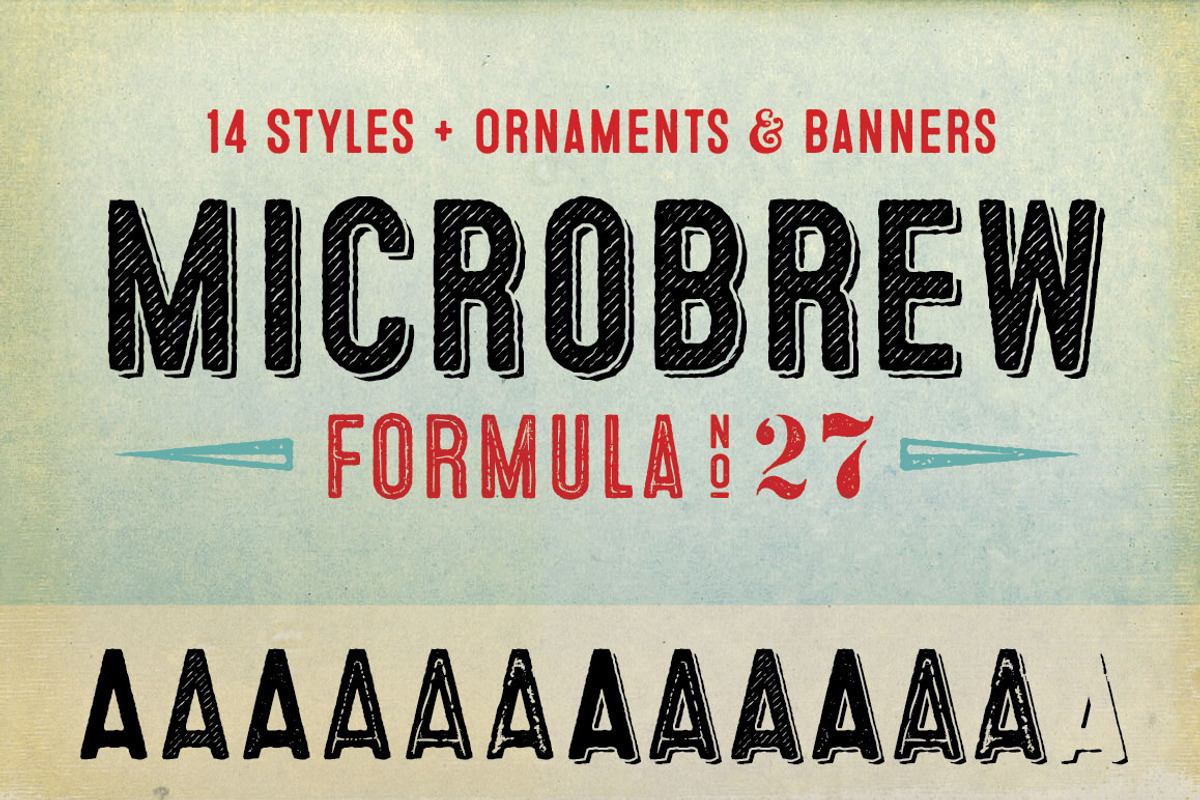
Microbrew Complete Family Font Free Download is a versatile and bold font family that offers a wide range of styles and weights, making it ideal for all kinds of design projects. With its clean, modern lines and flexible structure, it is perfect for branding, web design, editorial layouts, posters, packaging, and much more.
The family includes multiple weights and styles, allowing for great flexibility in creating strong headlines, body text, and eye-catching logos. Microbrew’s contemporary aesthetic makes it ideal for both professional and creative design needs, ensuring that your typography stands out with clarity and style.